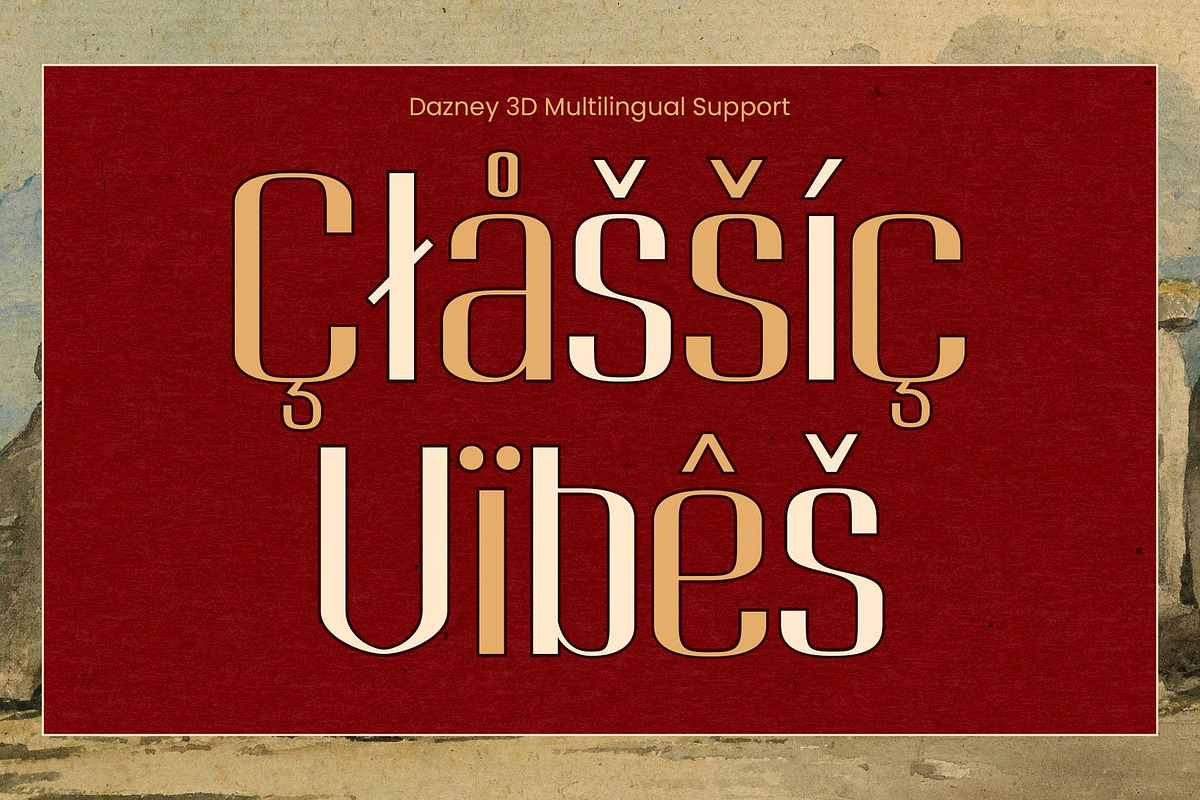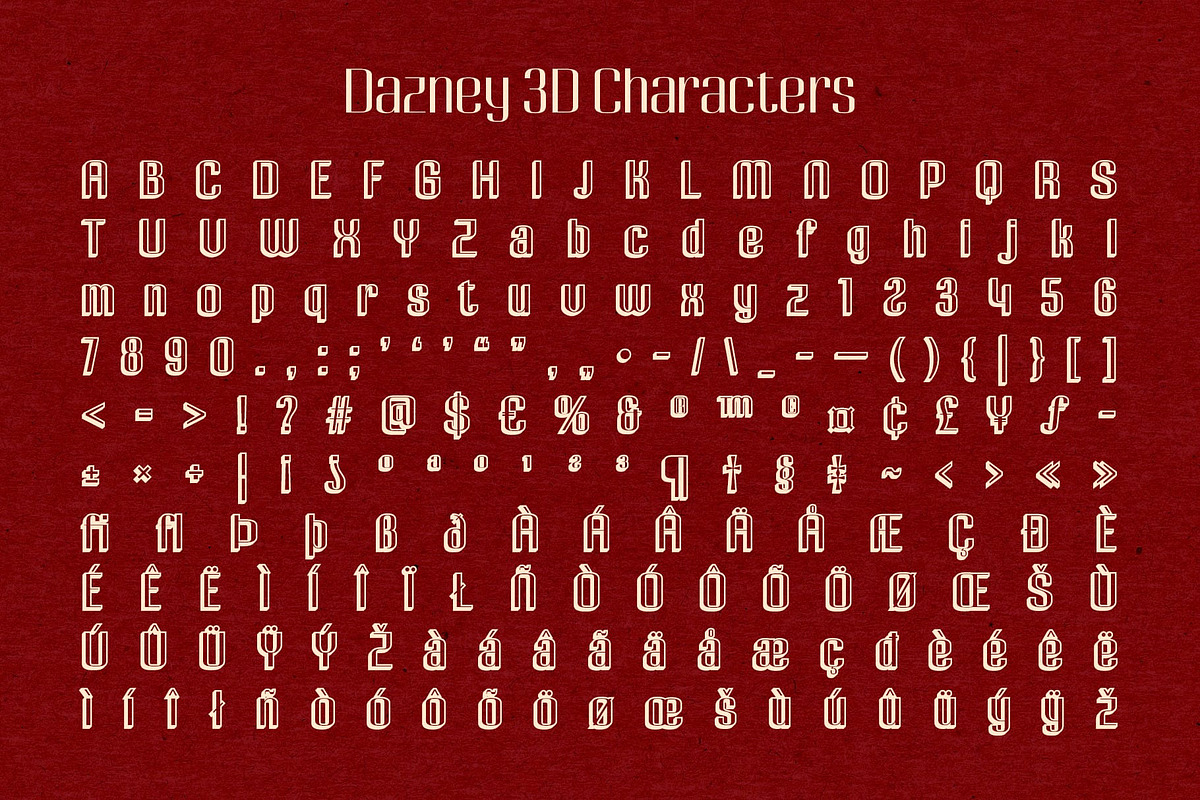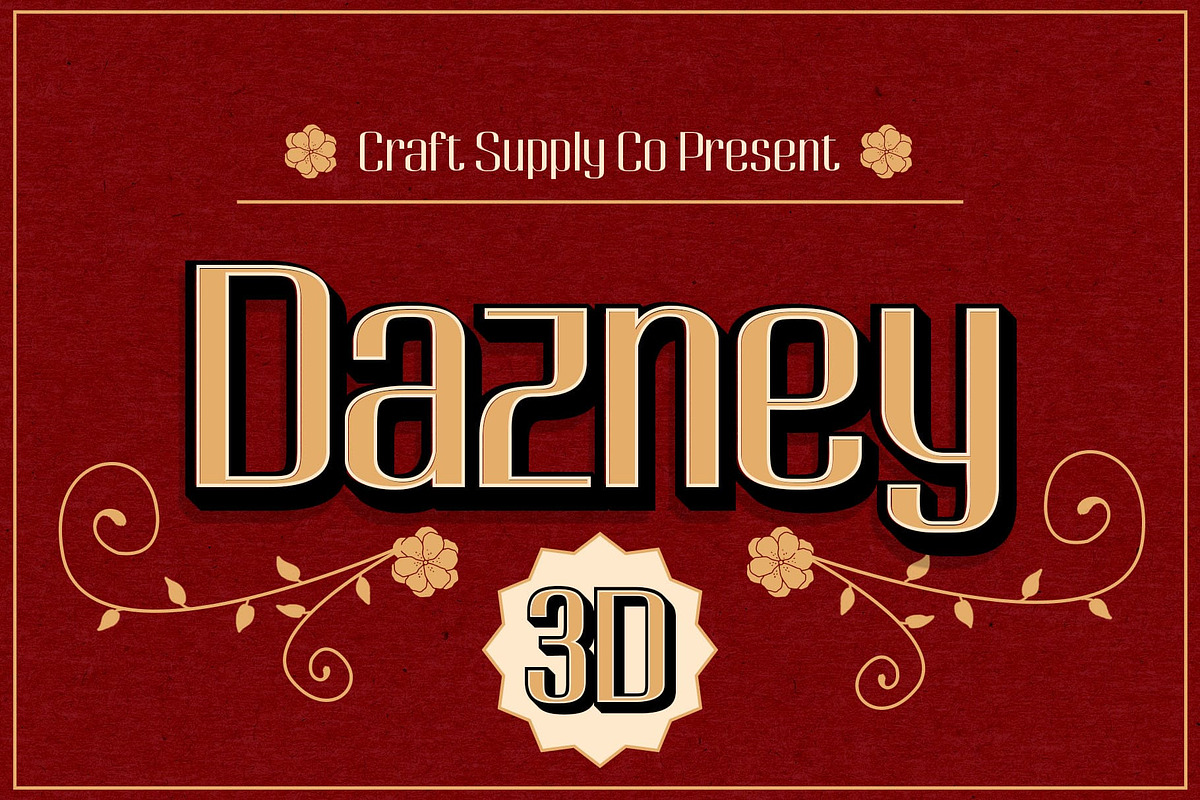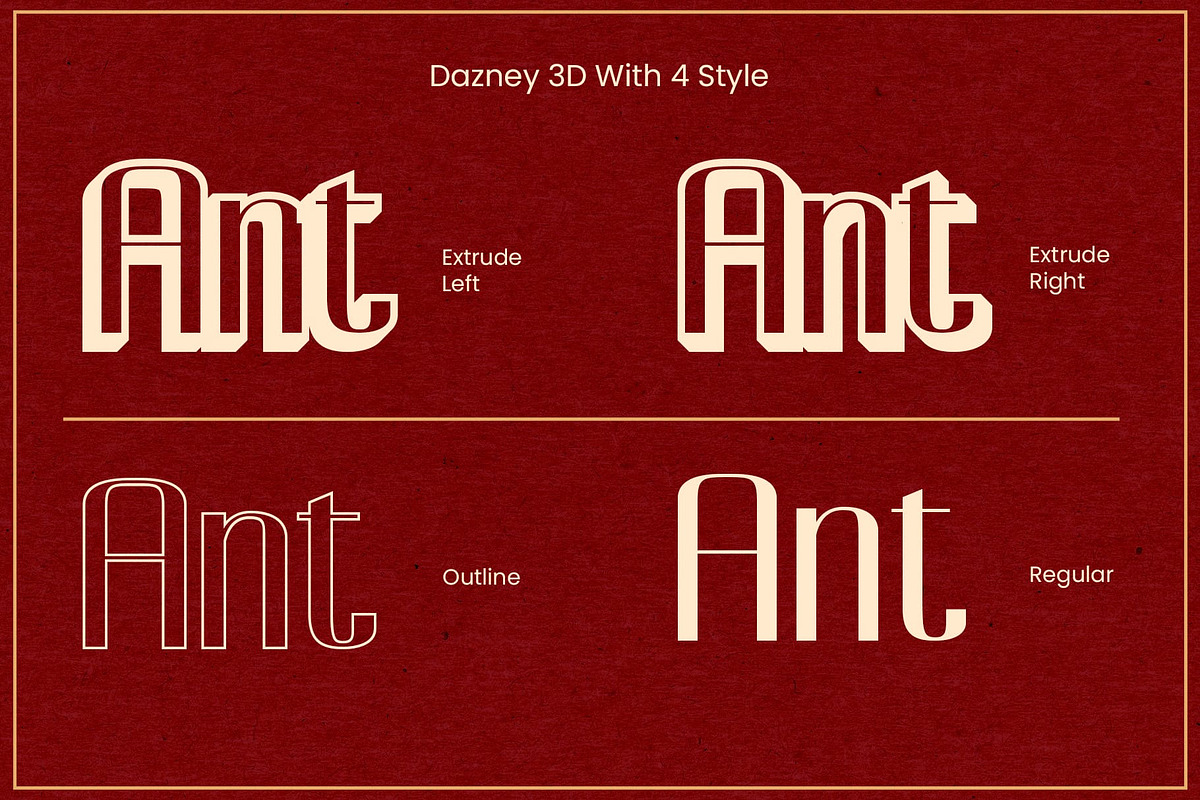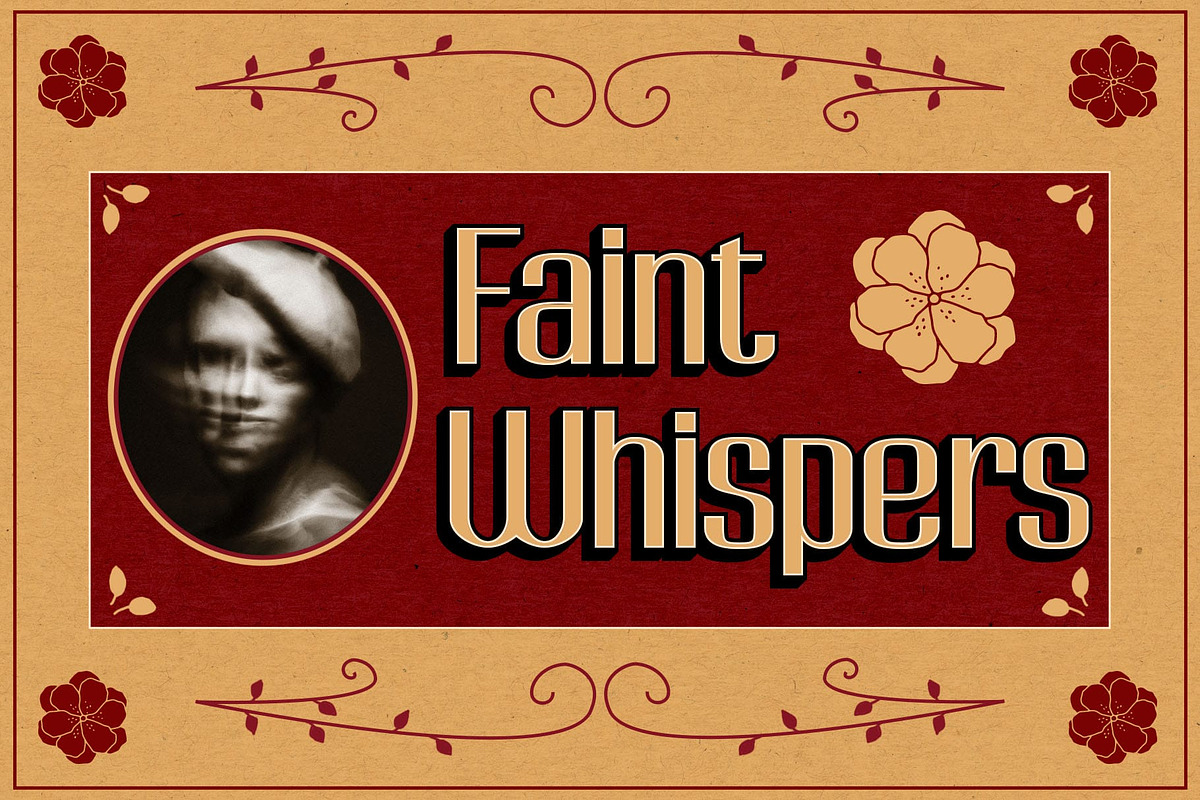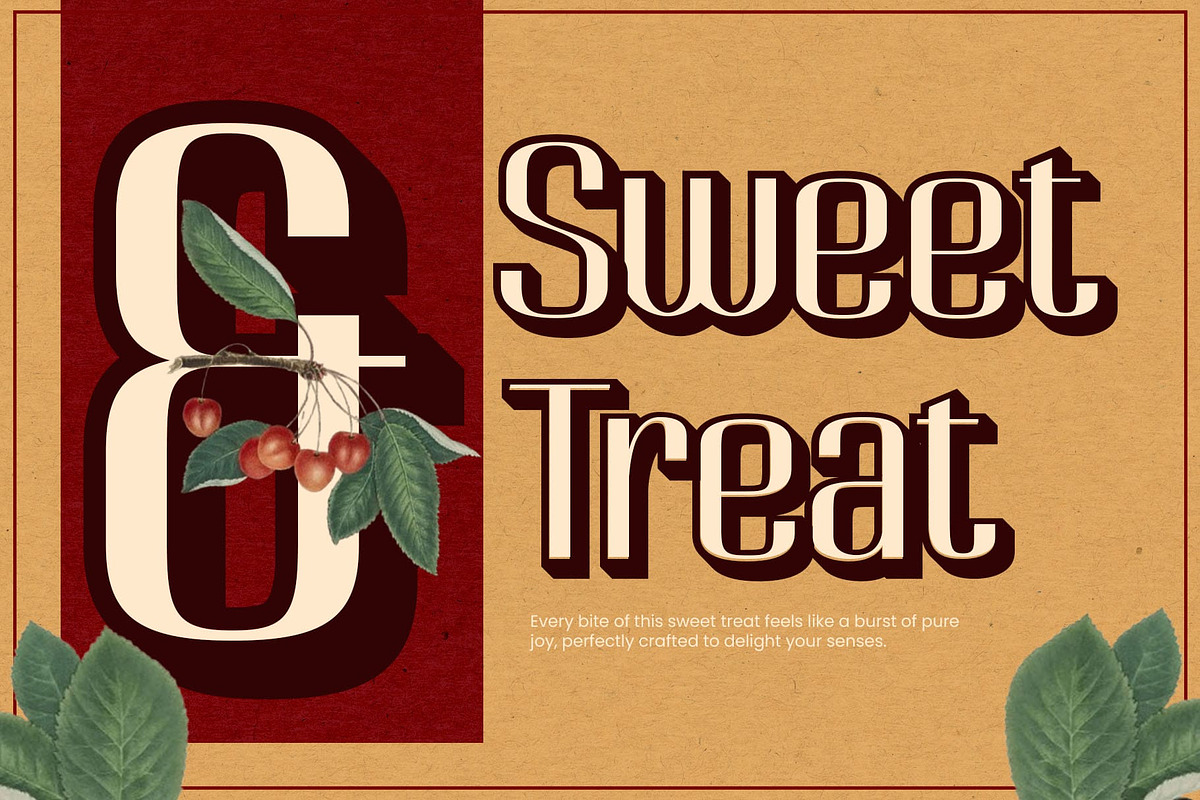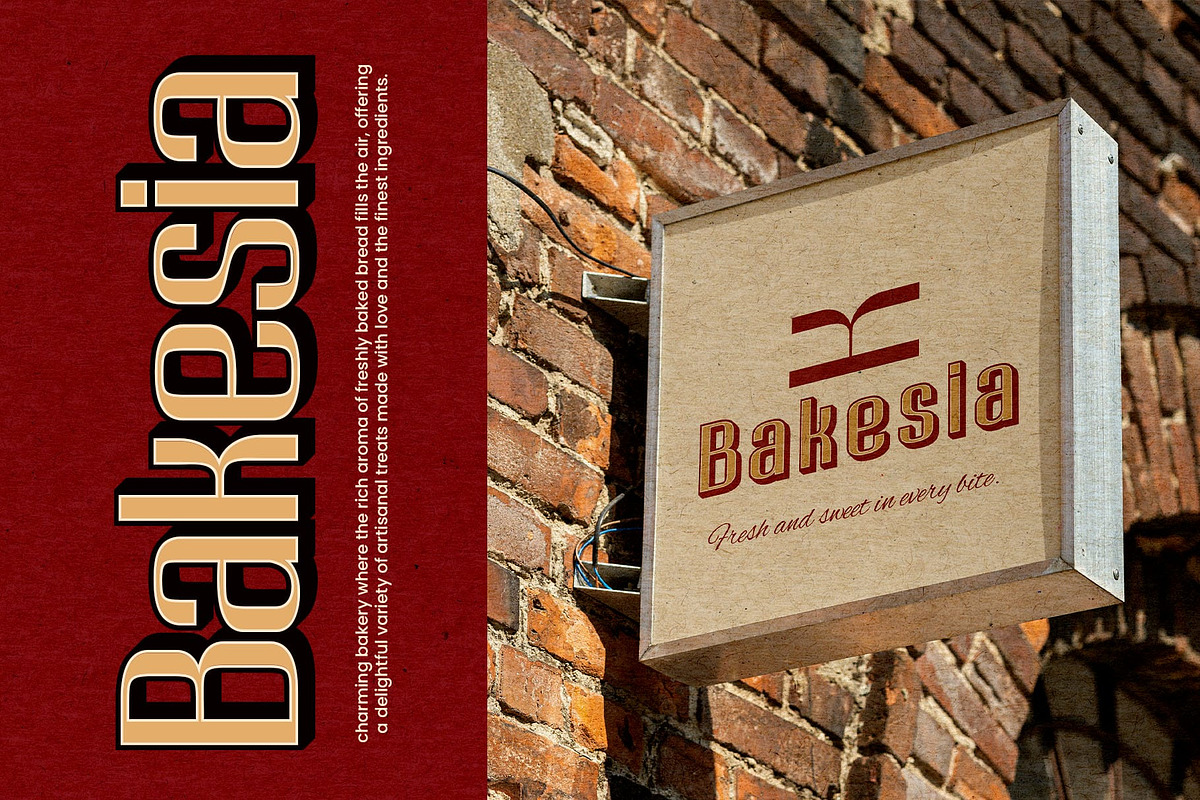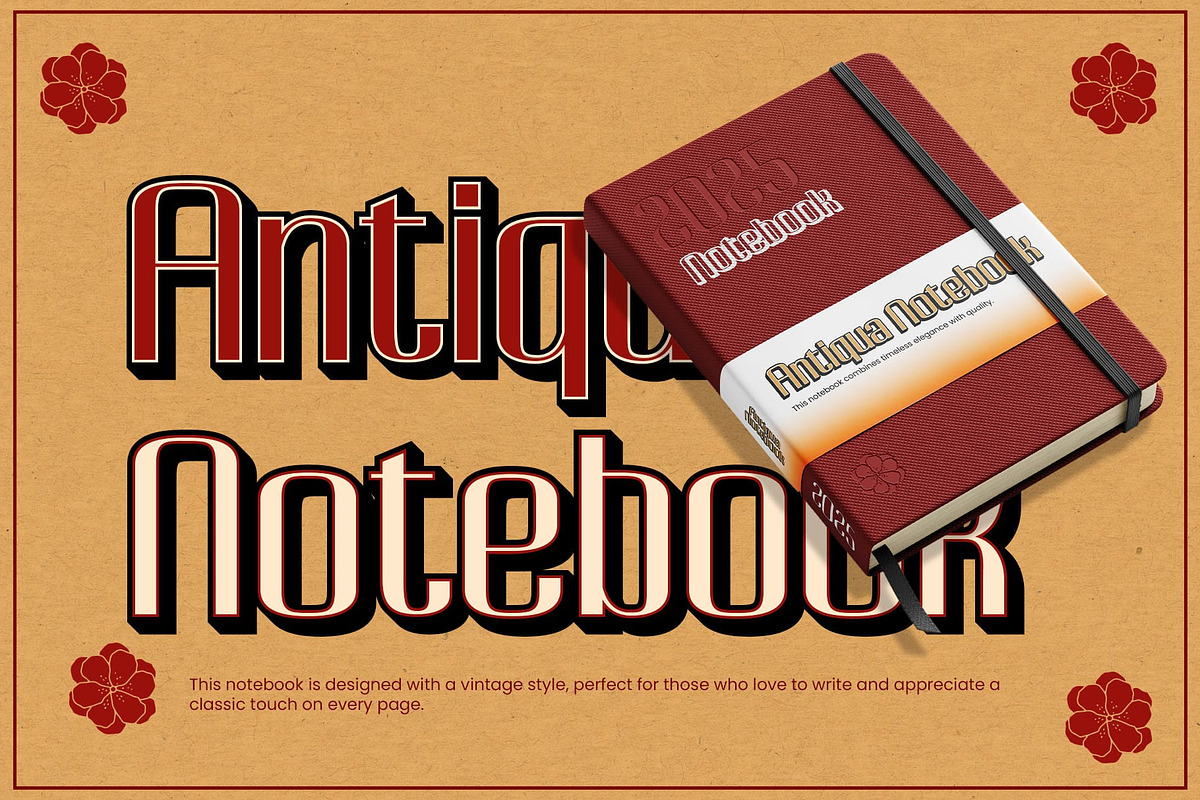
Dazney 3D
Dazney 3D Font: A Dynamic Modern Sans Serif Font
Condensed Shape with Sleek Design Dazney 3D is a modern sans-serif font with a condensed shape that offers a sharp and efficient appearance. Its sleek, vertical design maximizes space without compromising readability, making it ideal for projects that require compact yet impactful typography. The clean, professional structure of the letterforms exudes a sense of sophistication and functionality.
3D Effect for Visual Depth Enhanced with a bold 3D effect, Dazney 3D brings dynamic depth and dimension to your designs. This striking feature adds a futuristic edge, making the font perfect for creating bold, eye-catching visuals. Whether used in headlines, logos, or promotional materials, the 3D effect ensures a high-impact aesthetic that stands out in any context.
Perfect for Futuristic and Modern Designs The unique combination of a condensed form and 3D styling makes Dazney 3D an excellent choice for futuristic branding and modern advertising materials. Its sleek design aligns perfectly with high-tech themes and cutting-edge innovations, delivering a look that is both professional and forward-thinking.
Versatile and Impactful Dazney 3D is not only a font but also a statement. Its versatility allows it to adapt to various applications, from posters and web banners to sophisticated branding projects. With its blend of sharp design and dynamic visual appeal, this font is the perfect tool for creating memorable and innovative designs.
- Dazney Regular
- Dazney Outline
- Dazney Extrude Right
- Dazney Extrude Left